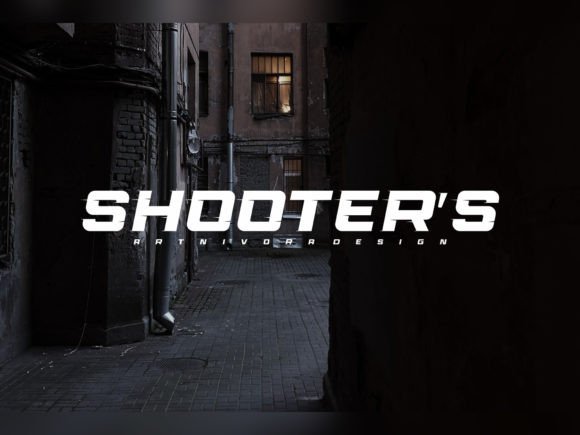
Shooters Font
Step into a world of captivating typography with Shooters Font, a sans serif masterpiece that will transform your lettering into a visual feast. Artnivora.std, the creative mastermind behind this font, has crafted a visual symphony that dances across the page with its clean lines and captivating curves.
Unleash your creativity and let Shooters Font ignite your imagination. This modern sans serif font is not just a collection of letters; it's an invitation to express yourself in a way that's both stylish and impactful. Whether you're crafting heartfelt letters, designing elegant invitations, or creating captivating social media posts, Shooters Font is your perfect companion.
With its crisp edges and flowing lines, Shooters Font brings an air of sophistication to any project. Its carefully balanced proportions and generous kerning ensure effortless readability, making it ideal for both long-form text and eye-catching headlines. Experience the joy of writing with a font that elevates your words, transforming them into a visual masterpiece that captivates and inspires.